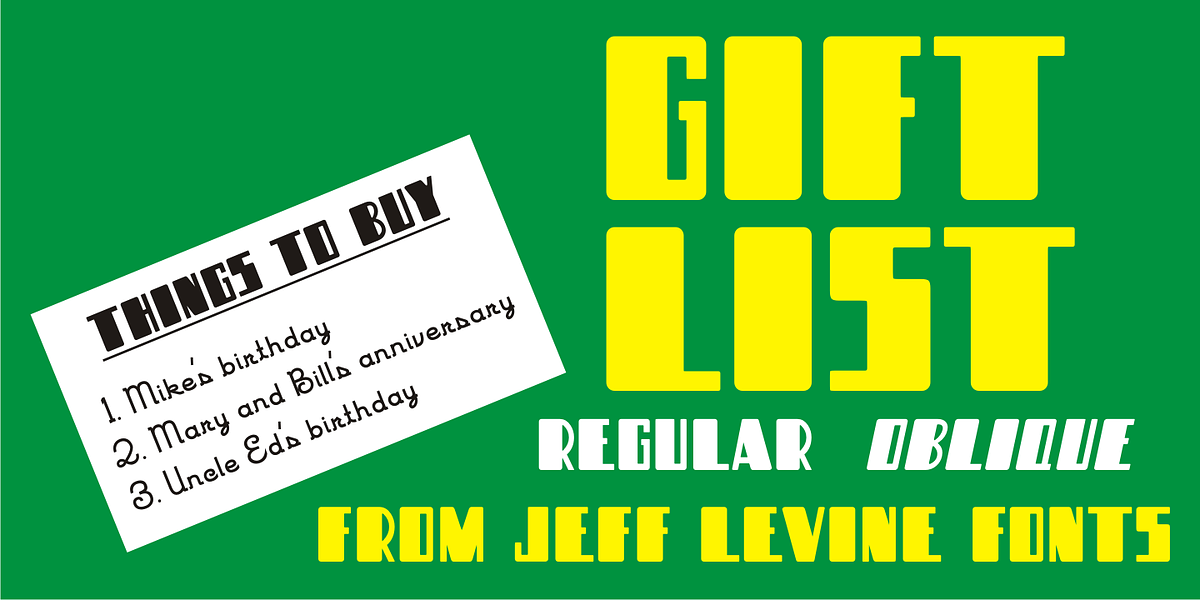
Gift List JNL
It's bold, it's blocky, it has rounded corners and was inspired by hand lettering on a vintage booklet for children's craft gift projects. It has regular and oblique versions. It's Gift List JNL.